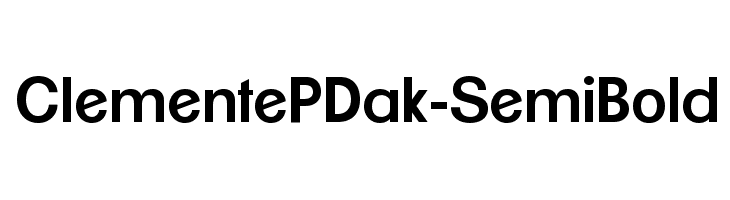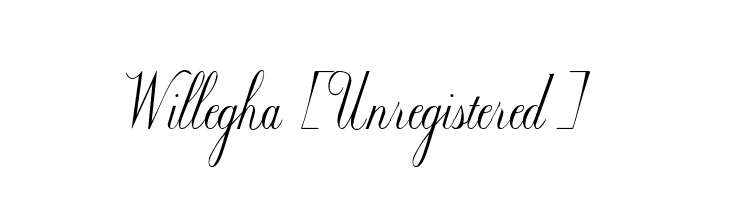
A bold slab serif font with strong, block-like serifs and uniform width.
A bold, vintage-style serif font with a distressed texture.
A classic serif font with modern elements and medium contrast.
A bold, geometric font with a futuristic, urban style.
A bold, expanded, and italic font with a modern and dynamic style.
A bold, condensed font with a modern and impactful style.
A bold, distressed font with a grunge, textured appearance.
A bold, geometric font with dynamic curves and angles, offering a modern yet retro aesthetic.
An elegant script font with flowing, interconnected letters and high contrast strokes.
A graffiti-inspired, highly decorative font with abstract, flowing characters.
A collection of iconic silhouettes and symbols from a popular sci-fi universe.
A bold, geometric font with a futuristic and mechanical style.
A modern serif font with elegant, elongated letterforms and subtle serifs.
A bold, playful font with thick, rounded characters and a bubbly appearance.
A modern, italic sans-serif font with a clean and dynamic appearance.
A bold, distressed font with a vintage, industrial feel.
A bold, modern sans-serif font with clean lines and excellent readability.
A bold, geometric font with a modern and assertive style.
A bold, expressive handwritten font with dynamic curves and thick strokes.
A bold, angular font with a geometric, industrial feel.
A bold, pixelated font inspired by retro digital displays.
A bold, textured, hand-drawn uppercase font with a playful and artistic style.
A detailed blackletter font with ornate, medieval-inspired design.
A high-contrast, elegant font blending modern and vintage styles.